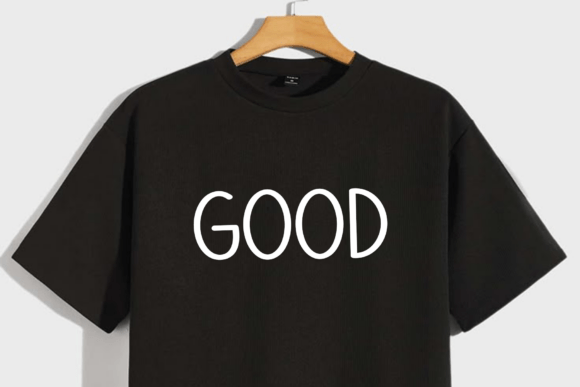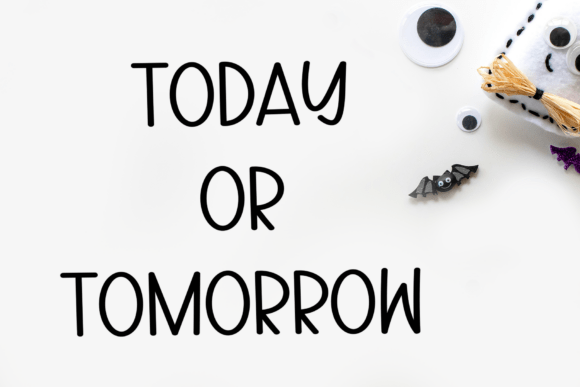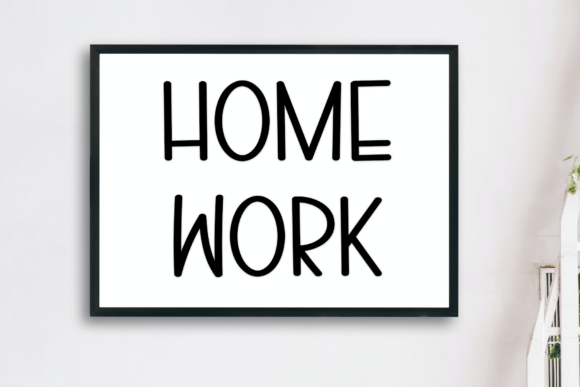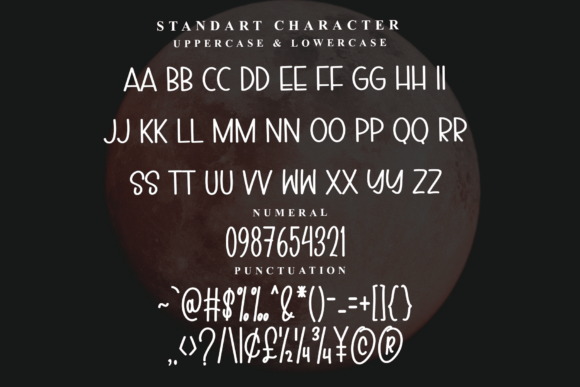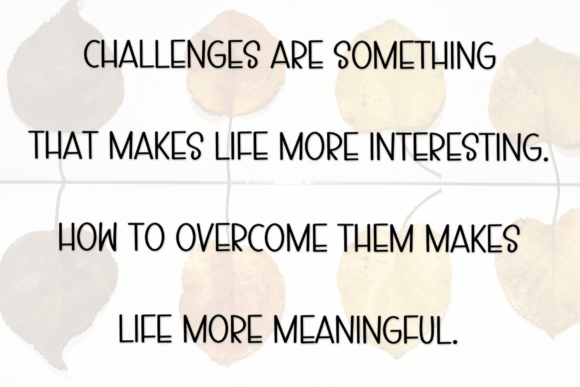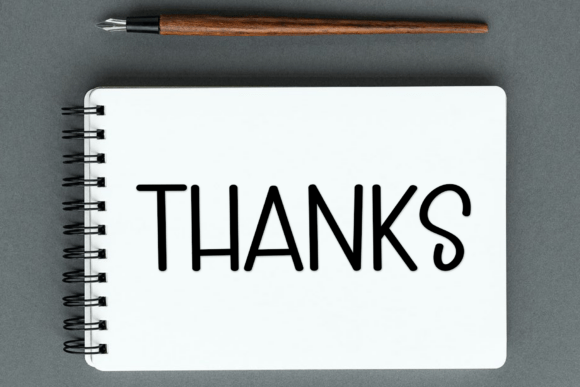
Introducing Hello Cat Font: A Festive and Merry Typeface for the Holiday Season
The holiday season is upon us, and with it comes the joy of creating festive and merry designs that capture the spirit of the season. As a designer or crafter, you’re likely on the lookout for a font that can add a touch of enchantment to your projects. Look no further than Hello Cat Font, a whimsical and decorative typeface that’s perfect for greeting cards, gift tags, and holiday-themed projects.
A Font that Embodies the Magic of the Holiday Season
Hello Cat Font is a beautifully crafted typeface that embodies the magic of the holiday season. Its decorative elements and whimsical flair make it an ideal choice for adding a cheerful and nostalgic ambiance to your words. Whether you’re creating holiday greeting cards, gift tags, or festive posters, this font is sure to bring a smile to the faces of your recipients.
Hello Cat Font is a versatile typeface that’s perfect for designers and crafters alike. Its festive and merry design makes it an excellent choice for a wide range of projects, including:
- Holiday greeting cards
- Gift tags and gift wrapping
- Festive posters and flyers
- Holiday-themed party decorations
One of the standout features of Hello Cat Font is its PUA (Private Use Area) encoding. This means that you can access all of the amazing glyphs and ligatures with ease, giving you even more creative freedom to customize your designs. With PUA encoding, you can:
- Easily access and insert glyphs and ligatures into your designs
- Customize your text with unique and decorative elements
- Create complex and visually appealing designs with ease
Bringing a Touch of Whimsy to Your Designs
Hello Cat Font is more than just a typeface – it’s a design element that can bring a touch of whimsy and magic to your projects. Its decorative elements and whimsical flair make it an excellent choice for adding a personal touch to your designs. With Hello Cat Font, you can:
- Add a touch of festive cheer to your designs
- Create unique and eye-catching text elements
- Bring a sense of nostalgia and wonder to your projects
Why Choose Hello Cat Font?
So why choose Hello Cat Font for your holiday designs? Here are just a few reasons:
- Festive and merry design that’s perfect for the holiday season
- Decorative elements and whimsical flair add a touch of enchantment to your designs
- Versatile and suitable for a wide range of projects